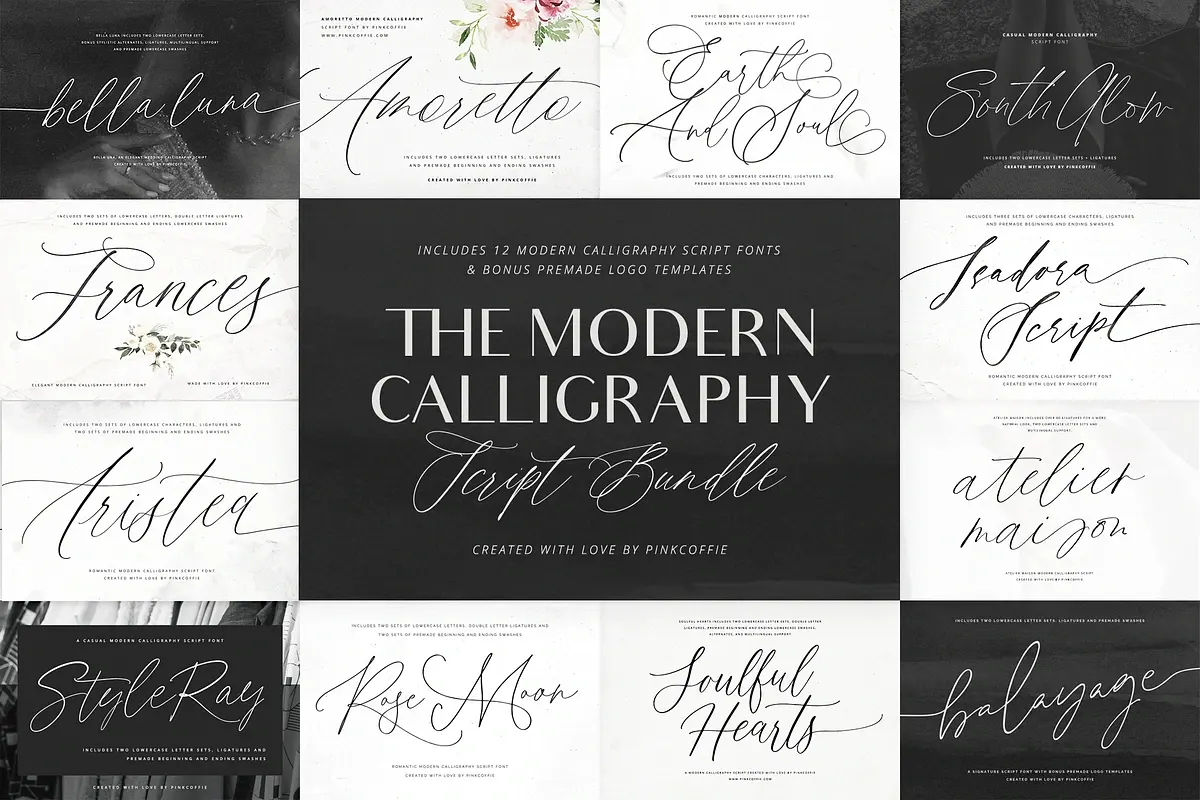
Please note, you must purchase this font for commercial use. However, you can easily download The Modern Calligraphy Script Bundle Free Download for personal use and testing purposes. The Modern Calligraphy Script Bundle is an elegant and sophisticated collection of handwritten fonts that brings the beauty of calligraphy to your design projects. Perfect for invitations, branding, greeting cards, and other creative works, this bundle offers a variety of styles that can add a personal and artistic touch to any project. The flowing curves and stylish letterforms in The Modern Calligraphy Script Bundle Free Download make it ideal for both formal and casual designs, giving you the versatility to create stunning typography. Whether you're crafting a wedding invitation or designing a logo, this font bundle ensures your text stands out with grace and charm. Download The Modern Calligraphy Script Bundle Free Download today and explore its artistic potential before purchasing a commercial license.